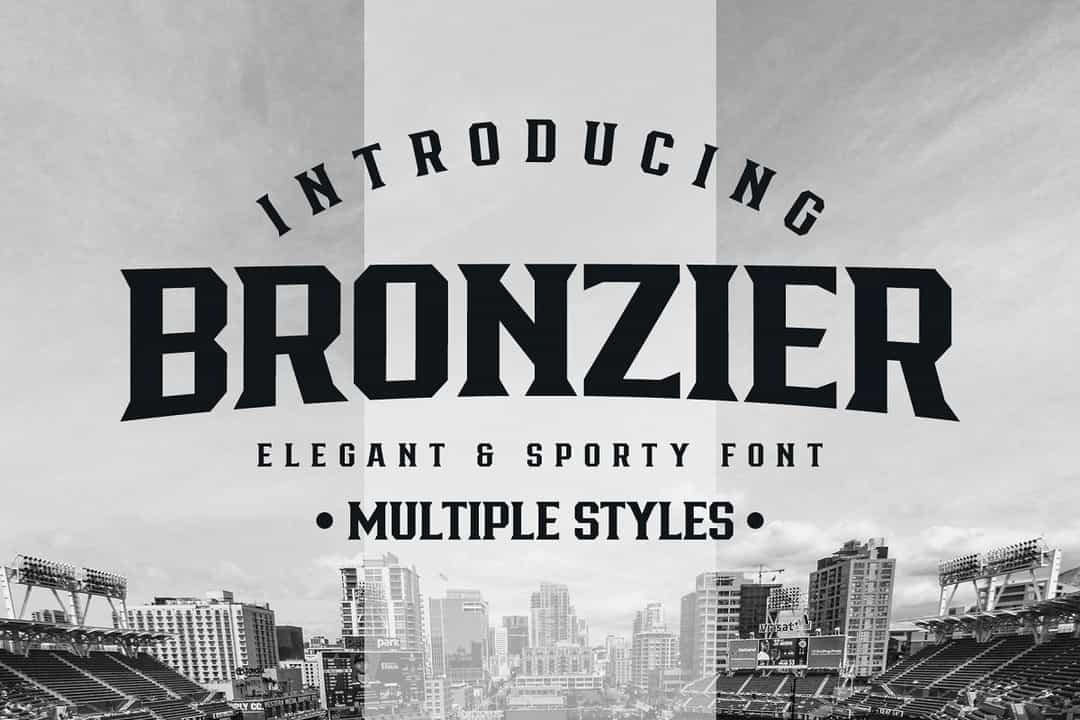
Bronzier can be described as a very a serif font that comes with eight styles. Having more distinctive and pointed edges often associated with the men’s styles. This font is more on the contemporary, modern, and sporty side and you can apply the Bronzier font family for numerous designs; a combination of both the vintage and the latest typography trends.